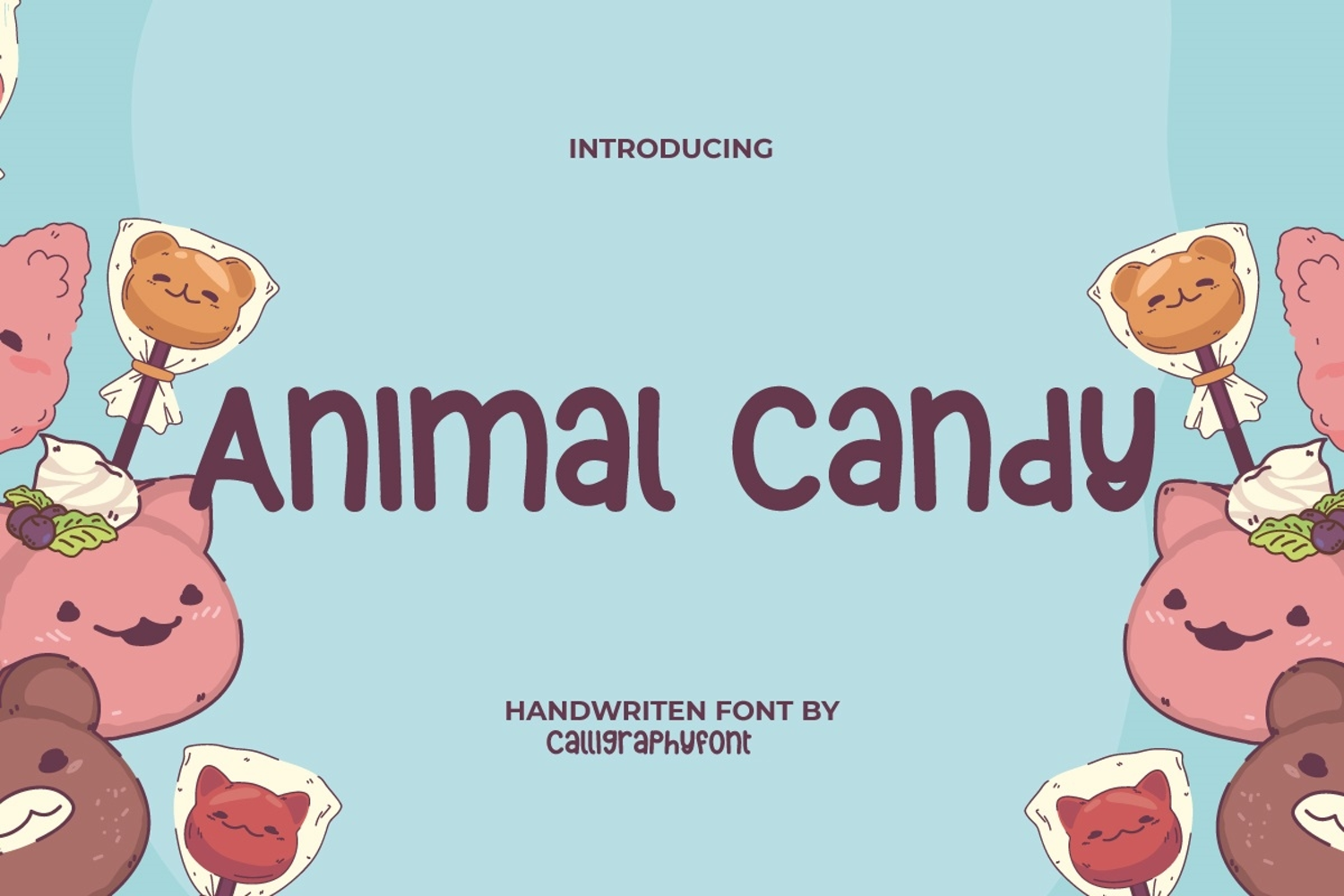
Animal Candy Font
Animal Candy Font is a fun comic display font that was originally inspired by some kids favorite cartoon shows. This adorable font will be suitable for creating cards, brands, invitations, flyer, fun social media posts, greeting cards, header, headline, invitations, label, logos, menu brochure, mockup template, picture books, poster, product packaging, quotes, screen print, signs, stationery, stickers, title, watermarks, website, and whatever creative projects you have.
Animal Candy Font is a sweet handwritten font and perfect for all your unique creations! This font will make your business look great and have fun! For example, such as brand of candy, cake shop, cooking classes, event organizer, fashion, film, graphic design, handicrafts, homeware, kindergarten, movie, photography, printing, publishing, restaurant, school, storybook writer, summer camp, toy store, and much more.